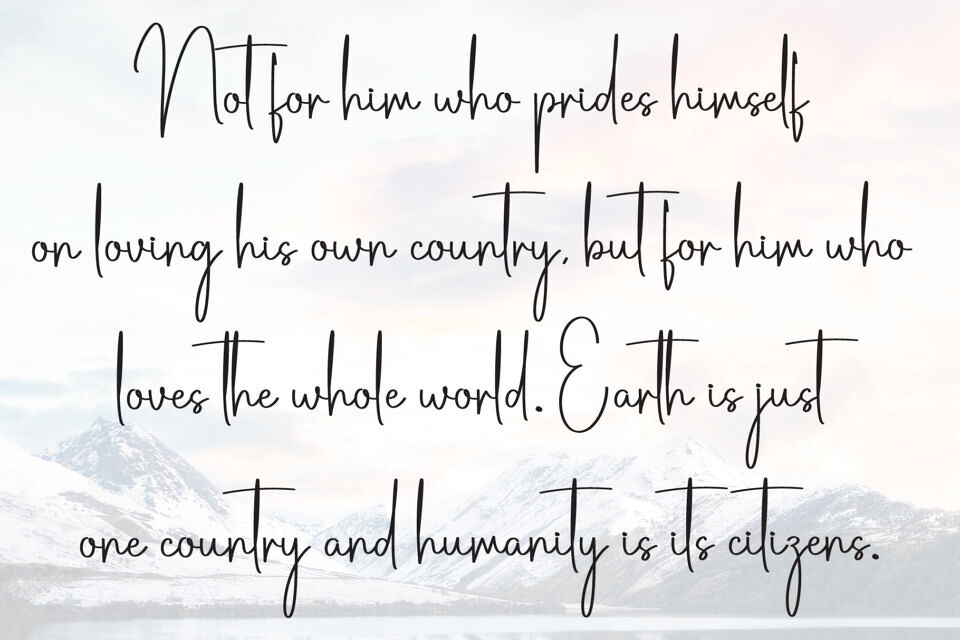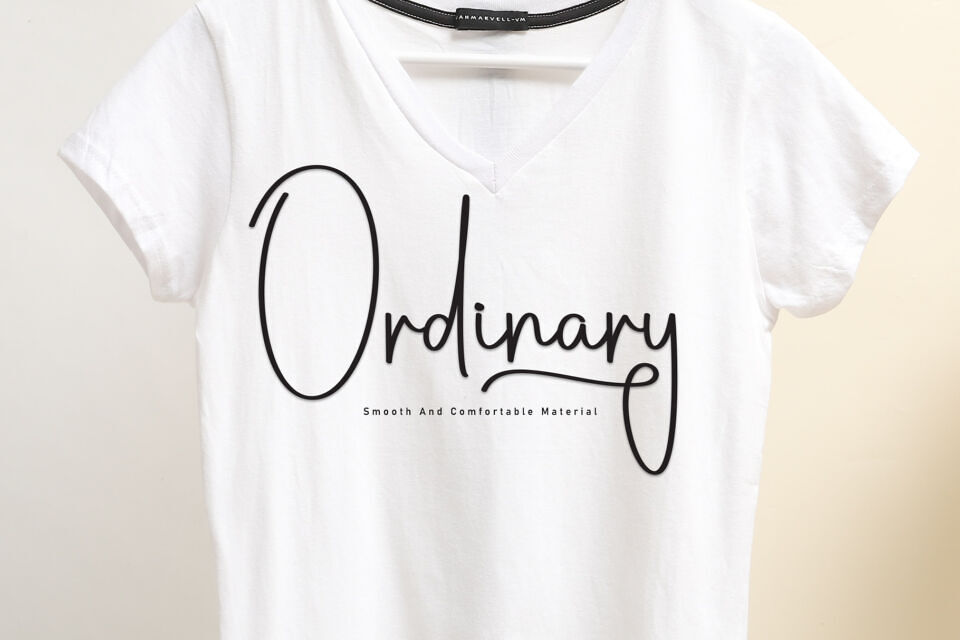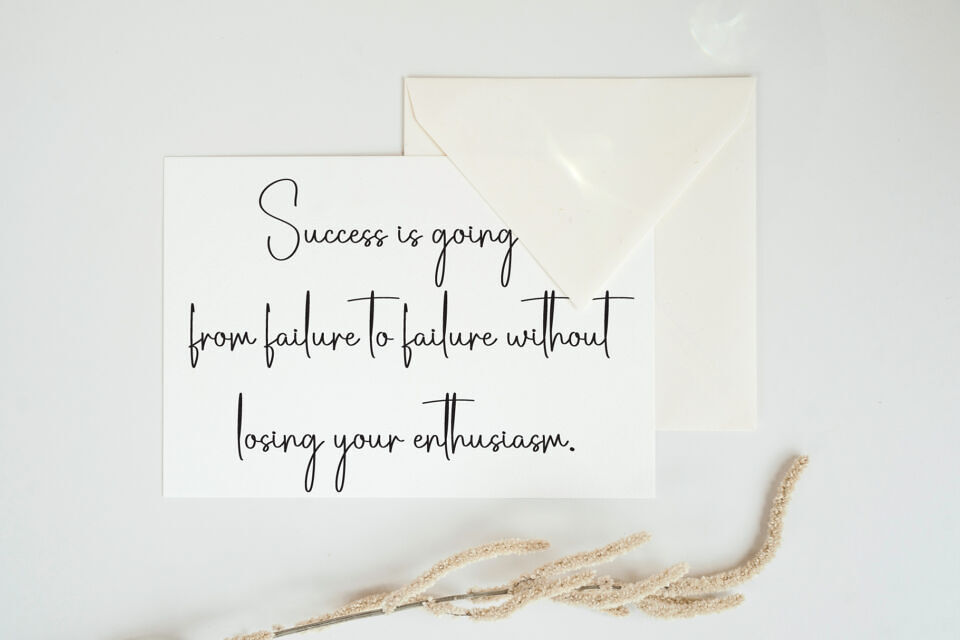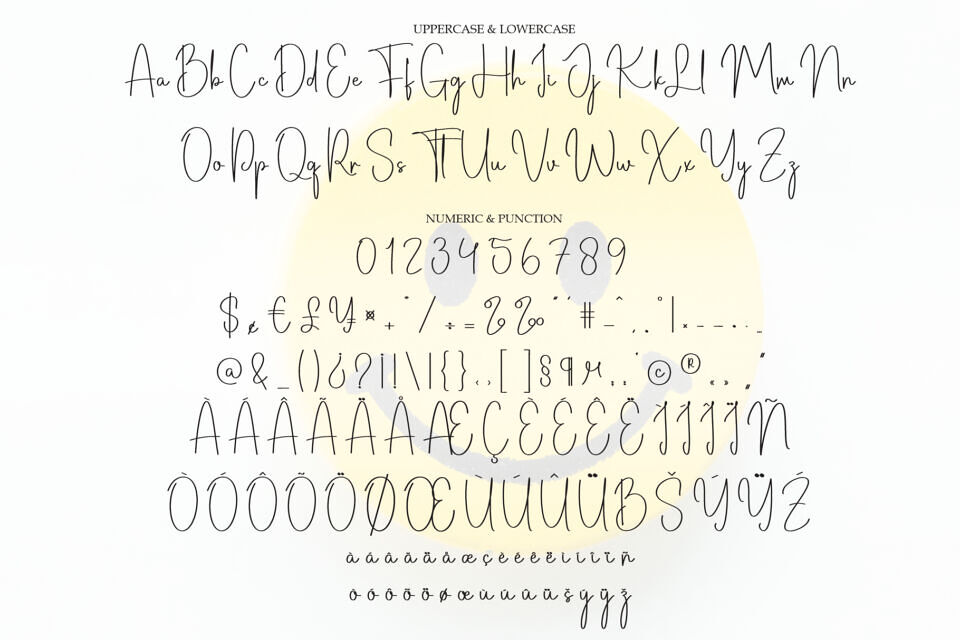
Smileyface Font
Smileyface is a lovely and timeless handwritten font. It is the best choice for creating eye catching logos, branding and quotes. Every letter has a unique and beautiful touch, which will make your design come alive!